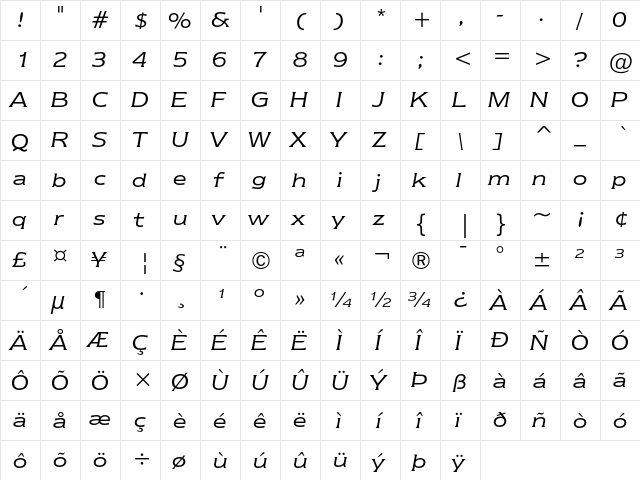
ITC Newtext Book Italic
Design Context for ITC Newtext Typeface
ITC Newtext takes a measured approach to typography — its balanced proportions and neutral character make it a reliable workhorse for both digital and print work. The slanted form adds forward momentum and visual energy.
Pro Tip: Try ITC Newtext for annotation and caption copy alongside an upright companion — the contrast in angle creates a dynamic but ordered typographic system.